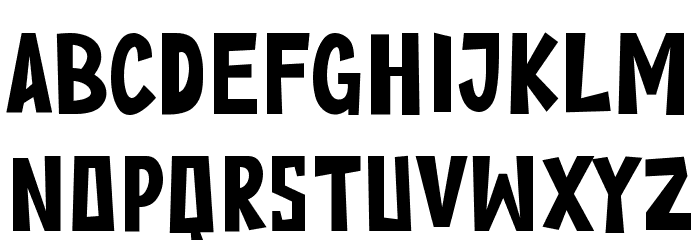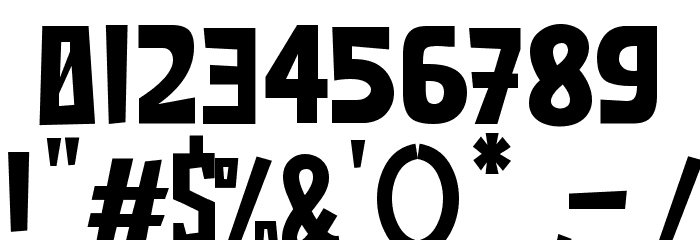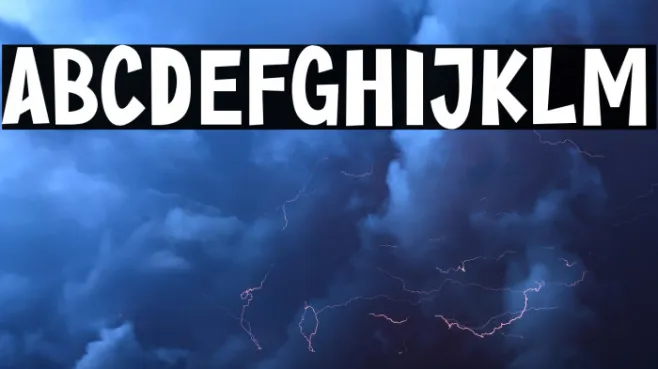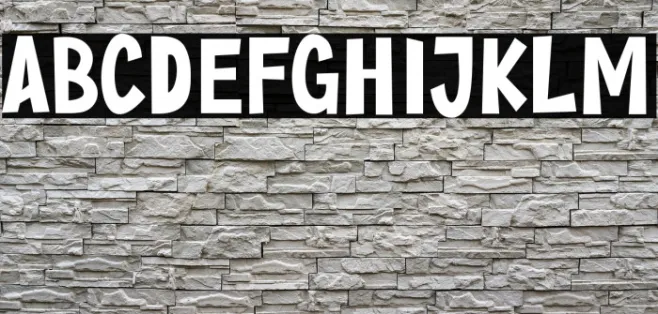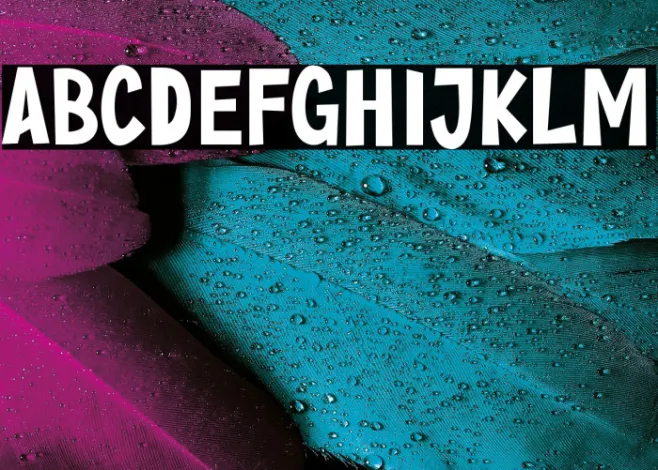
Capital Briquets Font
This font features bold, angular characters with a playful and dynamic appearance. The uppercase letters are distinct with sharp edges and varying line thickness, giving them a lively and energetic feel. The numbers and special characters maintain this boldness, ensuring consistency across all glyphs. The font's unique style is characterized by its exaggerated angles and slightly irregular shapes, which contribute to its informal and eye-catching design. This makes it particularly suitable for projects that require a fun and engaging visual element.
A bold, angular font with a playful and dynamic style.
- Font: Capital Briquets
- Proposed Projects: Ideal for posters, children's books, comic strips, and branding materials that require a fun and energetic look.
- Overall Style: Playful, Energetic, Informal
- Use Case: Headlines, Posters, Branding